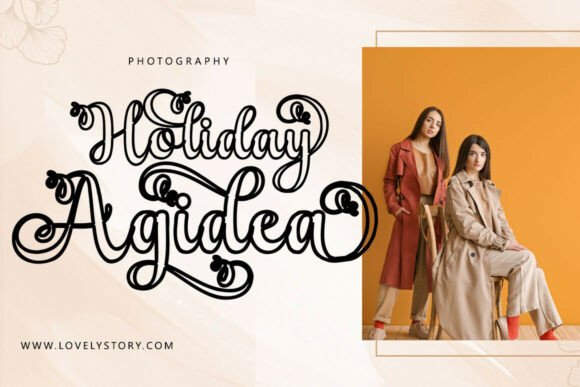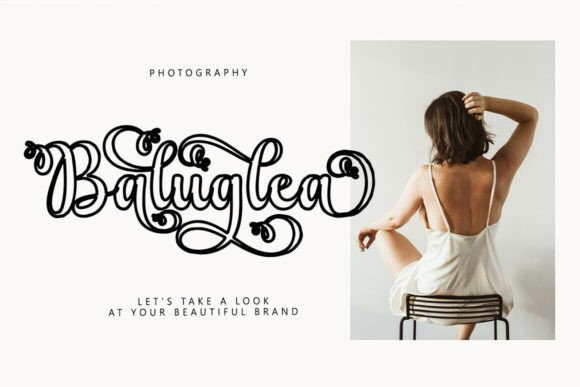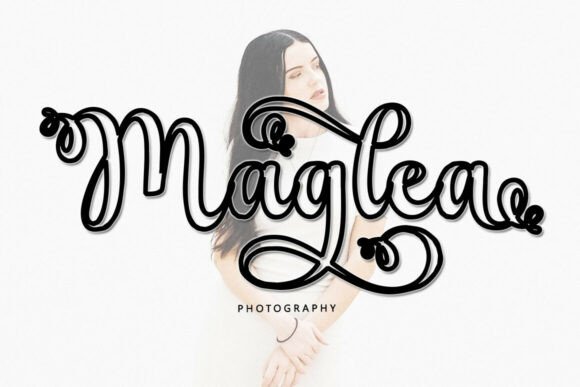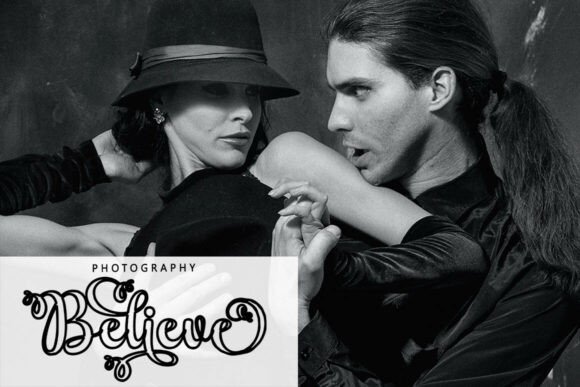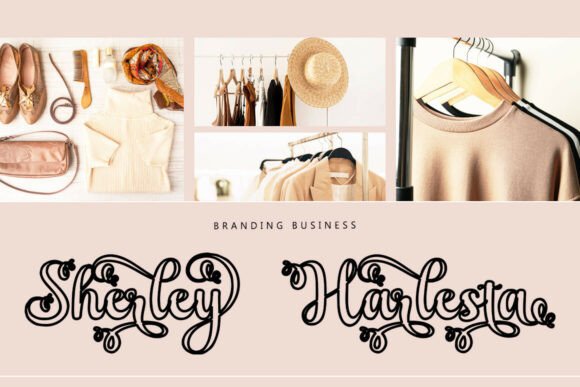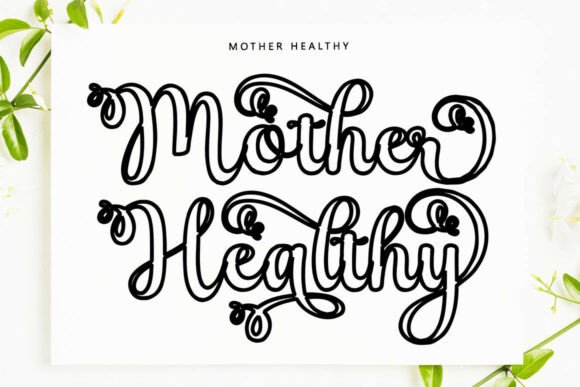
Have you ever found yourself staring at a blank page, searching for the perfect font to bring your design to life? Maybe you’re planning a wedding and want to create beautiful invitations, or perhaps you’re working on a romance novel and need a font that exudes elegance and sophistication. Whatever your project, you’ll want to make sure your font choice is nothing short of perfect.
That’s where the Baby Kayla Outline Font comes in – a stunning calligraphy font that combines classic style with modern flair. With its smooth, clean lines and beautiful alternate characters, this font is sure to make your designs stand out. Whether you’re a seasoned designer or just starting out, the Baby Kayla Outline Font is a valuable addition to your toolkit – and a must-have for anyone looking to create beautiful, high-quality designs.
- Unique Characteristics: Hand-drawn, child-friendly design with a whimsical feel; perfect for creating a playful atmosphere
Designer Review: Baby Kayla Outline Font
At first glance, the Baby Kayla Outline Font seems to be a charming and whimsical font. ✨ I appreciate its unique outline style, which gives it a hand-drawn feel that’s perfect for creating a playful and childlike atmosphere. The font is also quite versatile, making it suitable for a wide range of applications, from branding to editorial design.
- ✨ The font’s outline style adds a layer of depth and visual interest, making it stand out in designs.
- ✨ The font’s wide range of application makes it a great choice for designers who need a versatile font.
However, there are some limitations to consider. ⚠️ The font’s outline style can be a bit overwhelming in large blocks of text, and the letters may become difficult to read. Additionally, the font’s weight and spacing can be inconsistent, which may affect its overall legibility.
- ⚠️ The font’s outline style can be overwhelming in large blocks of text.
- ⚠️ The font’s weight and spacing can be inconsistent, affecting its overall legibility.
Overall, I would give the Baby Kayla Outline Font 3.5 out of 5 stars. While it’s a charming and versatile font, its limitations may make it less suitable for certain design applications. Nevertheless, it’s still a great choice for designers who want to add a touch of whimsy and personality to their work.
Use the Baby Kayla Outline Font for titles, headings, and other emphasis elements to add a touch of whimsy and playfulness to your designs.
Combine the font with other creative elements, such as illustrations or graphics, to create a unique and eye-catching visual style.
Experiment with different font sizes and colors to create a balanced and harmonious design.
The Baby Kayla Outline Font is ideal for:
Children’s book covers and illustrations
Party invitations and